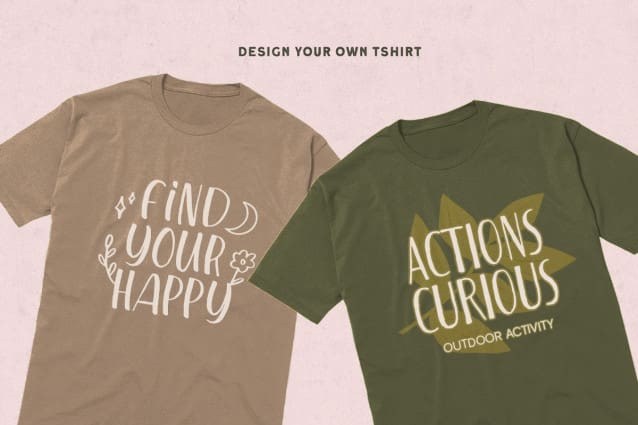
Comfy Cozies Font
Comfy Cozies Font. This organic sans serif font has a skinny form that gives it a light and airy feel, while the regular and slanted styles offer versatility and creative potential. Whether you’re designing for a playful brand or a casual event, this font will add a touch of warmth and charm to your work.